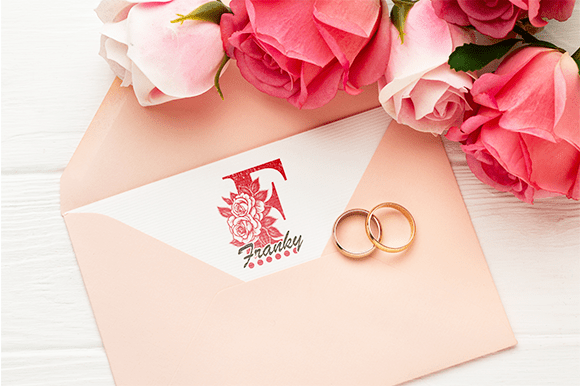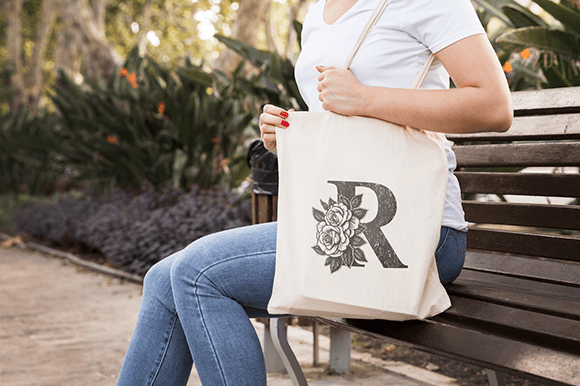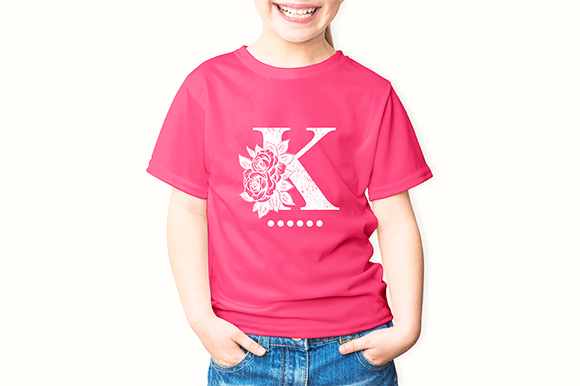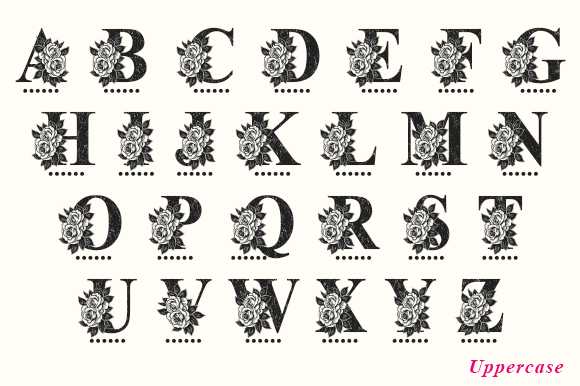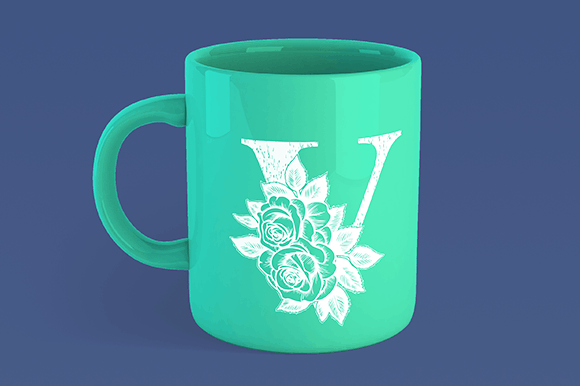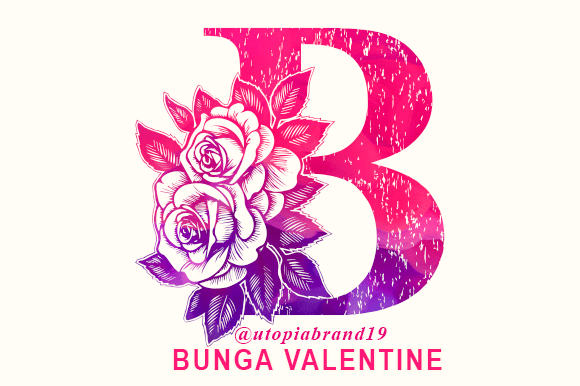
Love at First Sight: Discover the Enchanting Bunga Valentine Monogram Font
As a designer, there’s no greater joy than stumbling upon the perfect font to bring a project to life. It’s like finding the missing piece of a puzzle – everything falls into place, and the magic happens. For me, that moment came when I discovered the Bunga Valentine Monogram Font. This elegant decorative font is more than just a pretty face; it’s a masterclass in whimsy and romance, featuring lovely ornaments that will leave your audience weak in the knees.
The Bunga Valentine Monogram Font is a treasure trove of inspiration, waiting to be unleashed on your next design project. Whether you’re crafting gorgeous wedding invitations, beautiful stationery art, eye-catching social media posts, or cute greeting cards, this font is sure to add a touch of authenticity and charm. As a designer, you’ll appreciate the versatility and value it brings to your work, elevating even the simplest designs to new heights.
- Unique Characteristics: The Bunga Valentine Monogram Font features intricate floral patterns and elegant calligraphy, adding a touch of romance and sophistication to designs.
- Monogram Options: The font includes various monogram options, allowing users to create custom designs with their initials or names.
When I first laid eyes on the Bunga Valentine Monogram Font, I was immediately drawn to its whimsical charm. The intricate details and ornate design elements ✨ make it perfect for adding a touch of romance and elegance to any project.
The font’s versatility is another major plus, allowing it to be used for a variety of applications, from wedding invitations to social media graphics.
- ✨ Whimsical charm and intricate details
- ✨ Versatile design suitable for various applications
- ✨ Elegant and romantic feel
However, there are a few limitations that I’d like to point out ⚠️.
- ⚠️ Limited to monogram-style designs, which may not be suitable for all projects
- ⚠️ Some letters may be difficult to read due to the ornate design elements
Overall, I’m impressed with the Bunga Valentine Monogram Font’s unique design and versatility. While it may have some limitations, it’s perfect for projects that require a touch of romance and elegance.
For best results, use the font in conjunction with floral or romantic-themed designs.
For best results, use the font in conjunction with vector graphics or illustrations.
For best results, use the font in conjunction with romantic or festive-themed documents.
The Bunga Valentine Monogram Font is ideal for:
– Valentine’s Day cards and invitations
– Wedding stationery and decor
– Romantic-themed social media graphics
– Valentine’s Day-themed merchandise
Alternatives to Bunga Valentine Monogram Font
1. Great Vibes Monogram
The Great Vibes Monogram font is a beautiful, elegant, and cursive monogram font. It is perfect for creating a romantic and vintage look for wedding invitations, greeting cards, and other special occasions. Great Vibes Monogram is similar to Bunga Valentine Monogram Font in its cursive and elegant style, but it has a more classic and timeless feel.
2. Lobster Monogram
The Lobster Monogram font is a fun, playful, and whimsical monogram font. It is ideal for creating a casual and lighthearted look for party invitations, social media graphics, and other fun occasions. Lobster Monogram is different from Bunga Valentine Monogram Font in its playful and casual style, but it can add a touch of fun and personality to your designs.